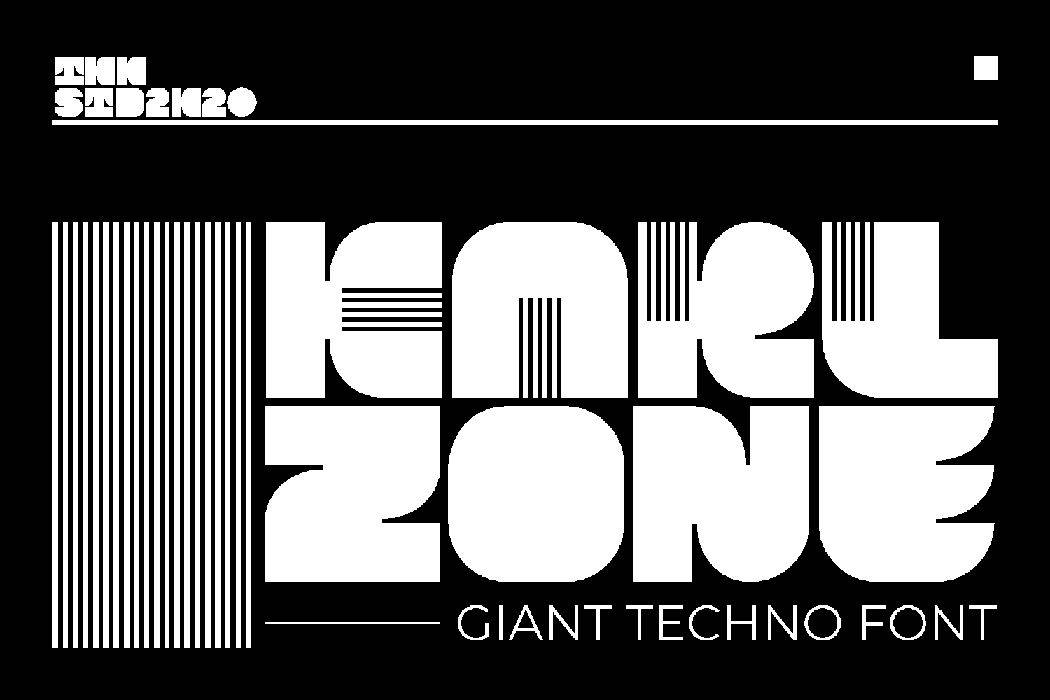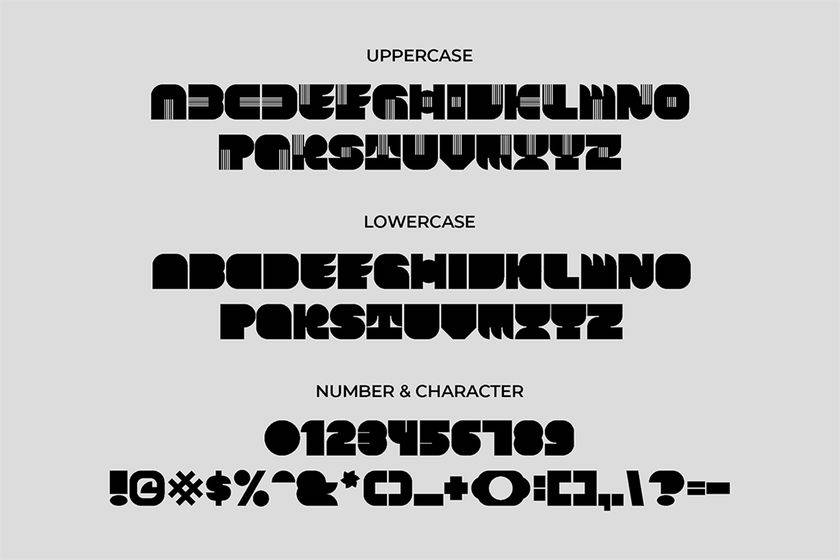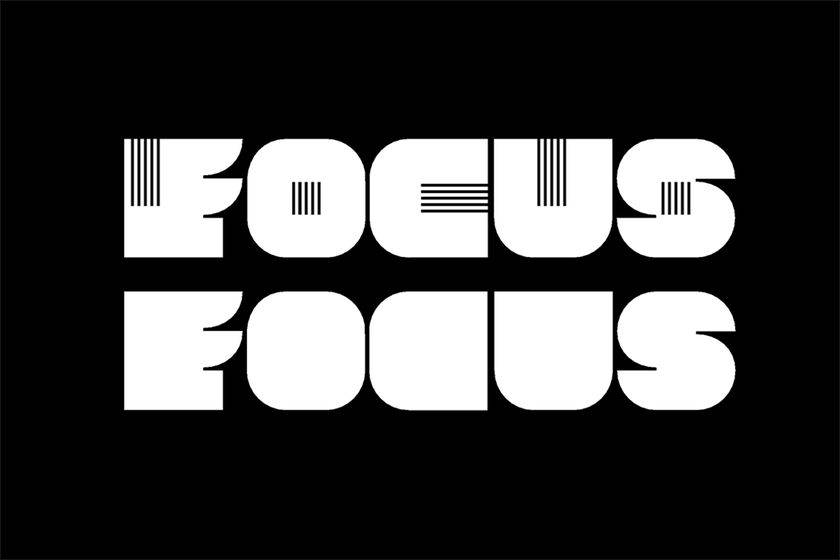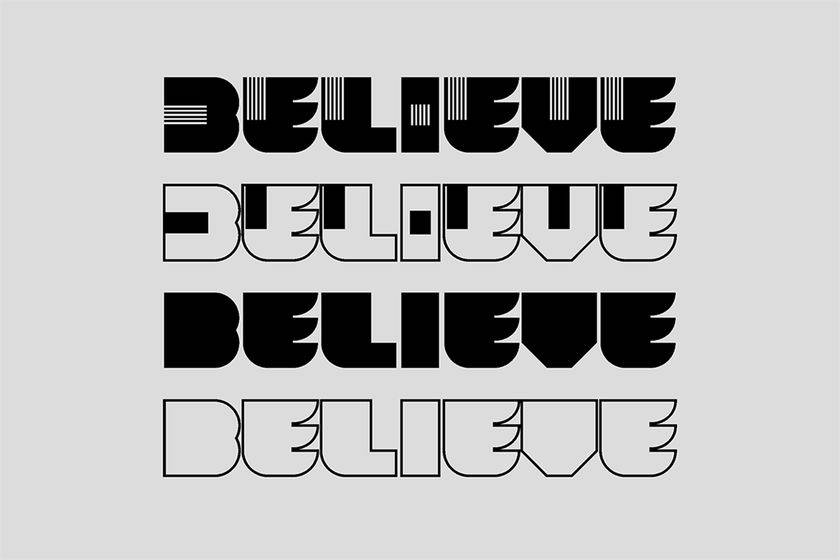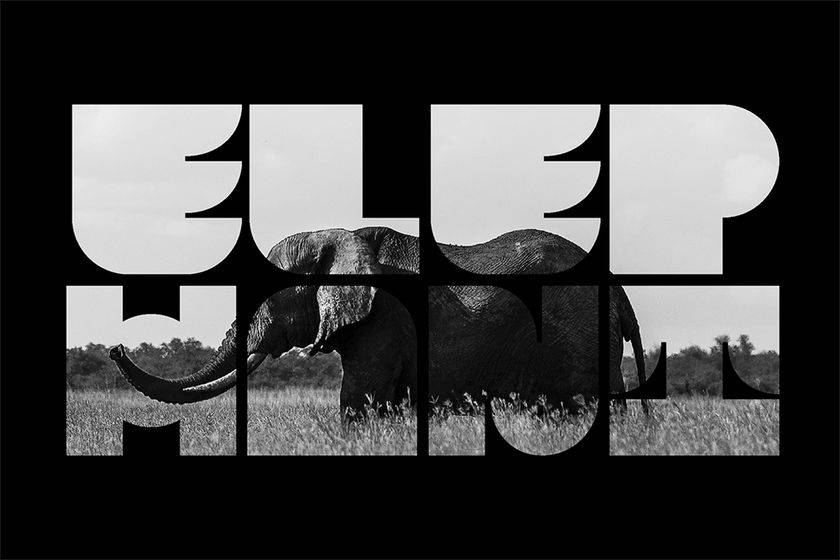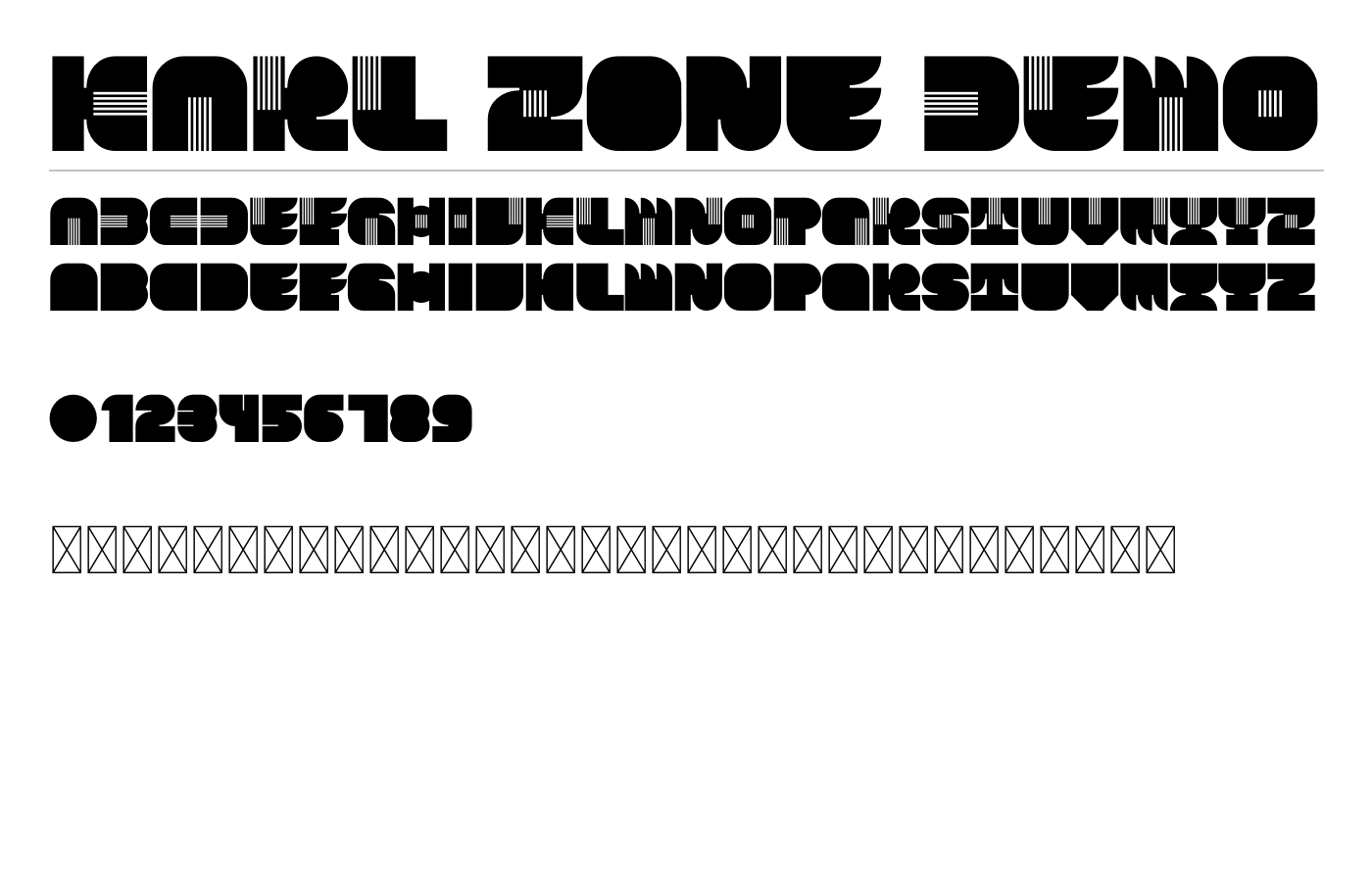
KARL Zone is a bold, geometric display font featuring chunky letterforms with playful striped accents that add a dynamic, retro-futuristic vibe. Its heavy weight and unique patterning make it ideal for eye-catching headlines, logos, and creative projects that seek a modern yet nostalgic style. This font works best in large sizes where its striking design can truly stand out.
KARL Zone Font